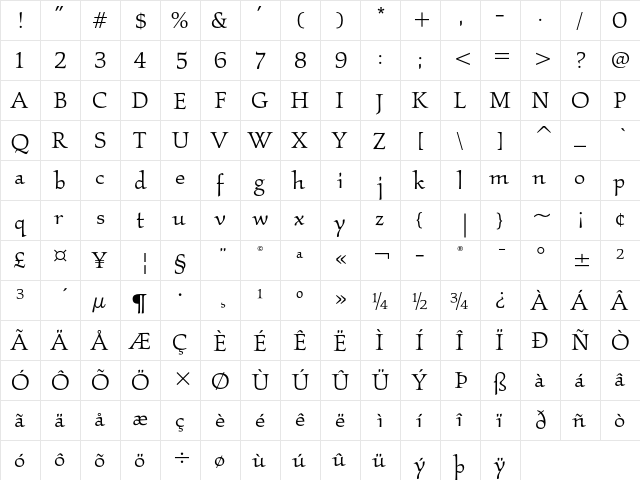
ITC Kallos LT Std Book
| Foundry | Linotype GmbH |
| Designer | Phill Grimshaw |
Design Context for ITC Kallos LT Std Typeface
ITC Kallos LT Std takes a measured approach to typography — its balanced proportions and neutral character make it a reliable workhorse for both digital and print work. Its slender proportions lend an understated elegance to any composition.